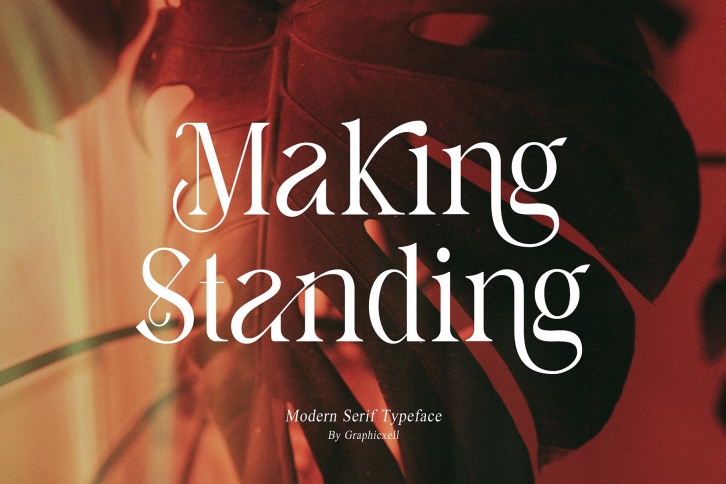
Making Standing is an elegant serif is a great font that was designed by Graphicxell. Imagine the amount of combinations you can create using this font! The archive is 17.90 MB and it was released on June 8, 2022. Making Standing is an elegant serif looks beautiful on wedding invitations, greeting cards, logos, posters, labels, t-shirt designs, logos, business cards and is perfect for use in ink or watercolor works, fashion, magazines, packaging and food menus, children's books and more!